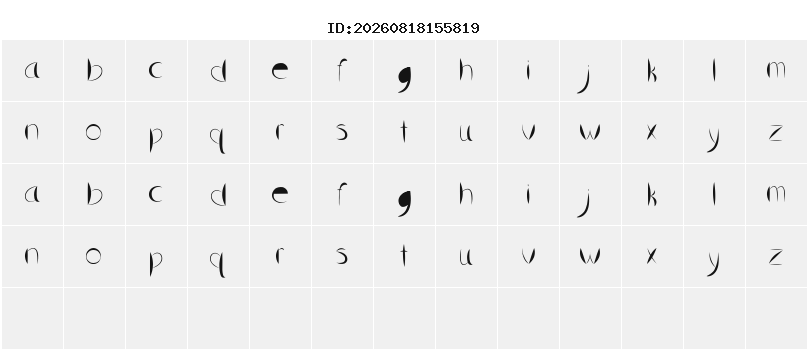
SliceAndDice Preview
About SliceAndDice.ttf
SliceAndDice.ttf is a modern, elegant sans-serif font designed for ultimate readability and visual harmony. Perfect for branding, headlines, web design, and print materials.